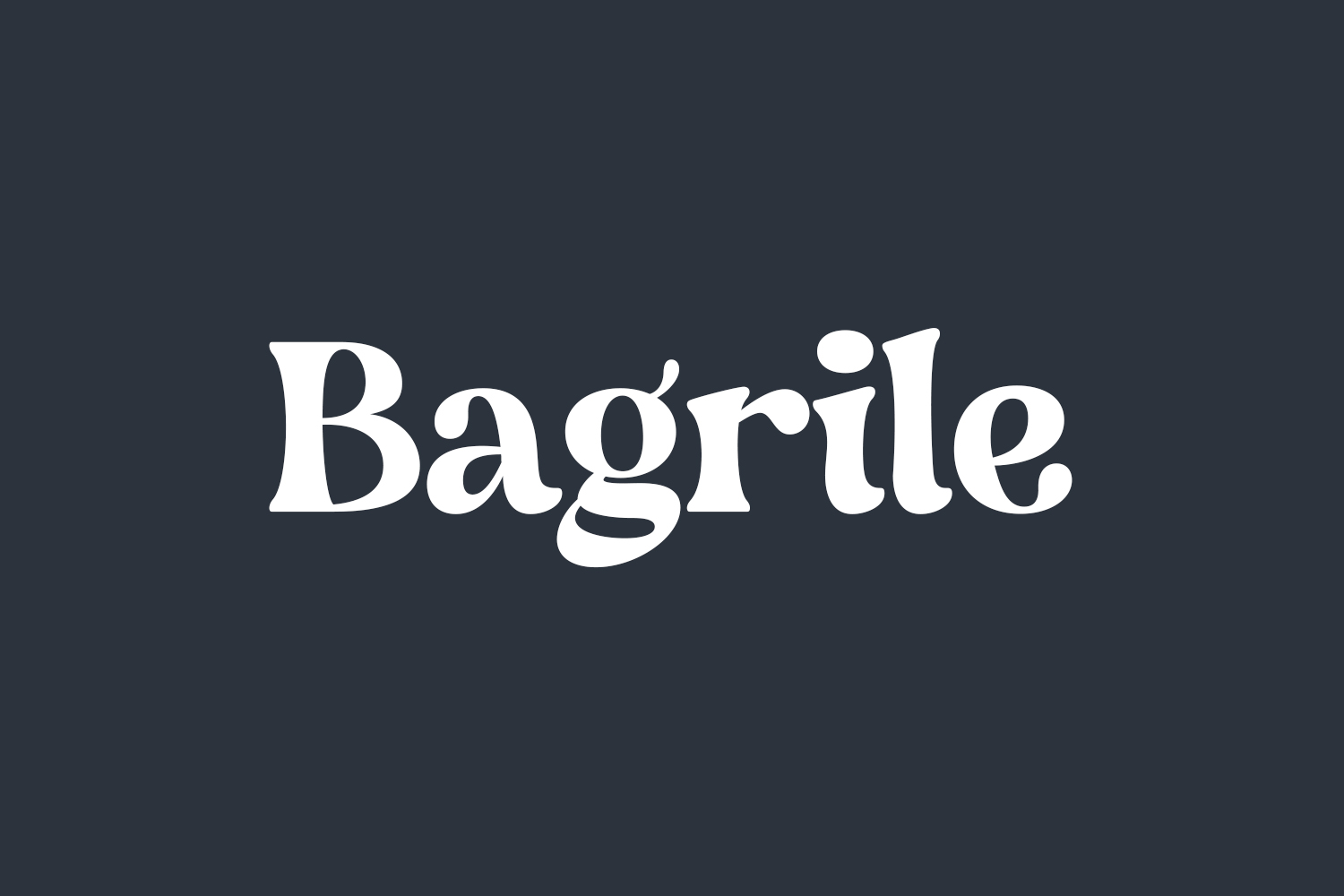
Bagrile Free Font epitomizes a blend of contemporary and timeless features within a serif font, showcasing a distinct and individualized style. It’s an ideal choice for creating sophisticated and luxurious logos, designing book or movie titles, establishing a fashion brand identity, curating magazine layouts, enhancing apparel designs, crafting intricate lettering, and elevating impactful quotes, among many other creative applications. Bagrile Free Font is free for personal use only. Please purchase the full version for commercial use.